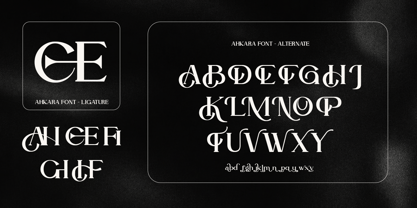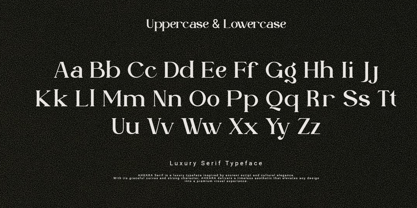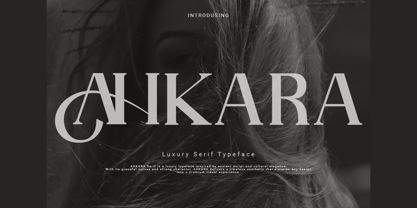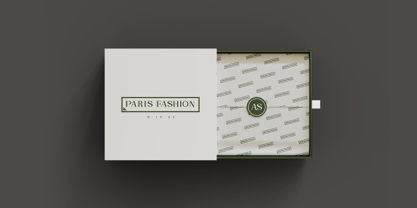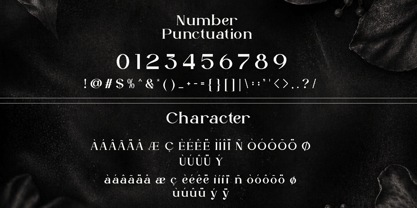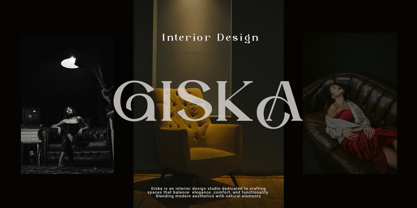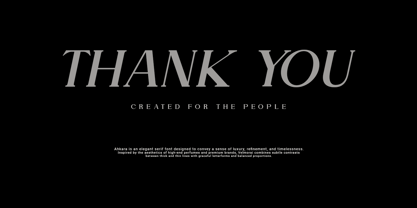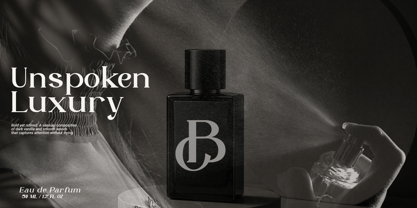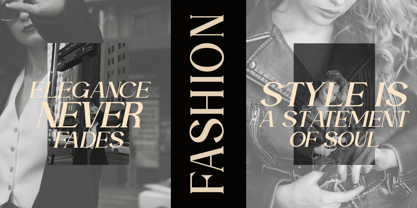
Ahkara
by Agung Sudirman
The Ahkara Font Family was designed by Agung Sudirman and published by Agung Sudirman. Ahkara contains 2 styles and family package options. More about this family
AHKARA Ahkara is a premium serif typeface designed to blend classic elegance with bold modern expression. Inspired by European editorial typography and high-end fashion aesthetics, Ahkara is strong, artistic, and full of personality. Each letterform in Ahkara is crafted with meticulous attention to detail—producing a balance between bold lines and soft curves that create a luxurious, exclusive, and sophisticated impression. This font is not just a writing tool, but a visual element that enhances a brand's aesthetic. Design Concept Ahkara is built on the concept of "elegance with attitude"—elegant but not passive. It has a bold spirit, evident in its high-contrast strokes and sharp yet refined serif shapes. This character makes Ahkara feel: Classic but not old-fashioned Modern but not losing its identity Artistic without sacrificing readability Visual Characteristics High Contrast Stroke The striking contrast between thick and thin strokes creates a dramatic and premium look. Refined Serif Detail The serif tips are sharp yet elegant, giving a luxurious and editorial feel. Stylized Letterforms Some characters have a unique touch that makes this font feel exclusive and not generic. Balanced Proportion The letter proportions are designed to remain comfortable to read, both in large and medium sizes. Impression & Mood Ahkara conveys the following nuances: Luxury & high-end Fashion-forward Elegant & timeless Artistic & expressive Confident & bold This font is perfect for brands that want to appear expensive, classy, ​​and distinct. Uses Ahkara is ideal for: Premium Logos & Branding Fashion brands, perfumes, cosmetics, jewelry Editorial Design Magazines, headlines, covers, lookbooks Packaging Design High-end products that require an exclusive feel Social Media Content Instagram posts, visual campaigns, aesthetic branding Display Typography Posters, banners, and large headlines Recommended Use For maximum results: Use Ahkara at large (display) sizes to highlight details Pair with a minimalist sans-serif font for body text Use soft contrasting colors (cream, gold, black, deep red) for a luxurious feel Allow enough spacing for the letters to breathe Taglines (for marketing) Elegance in Every Curve Crafted for Timeless Luxury A Statement Serif for Modern Brands Where Classic Meets Bold Expression Conclusion Ahkara is not just a font, but a visual identity. It is designed for brands that want to be bold yet elegant—creating a strong and unforgettable first impression.
Designers: Agung Sudirman
Foundry: Agung Sudirman